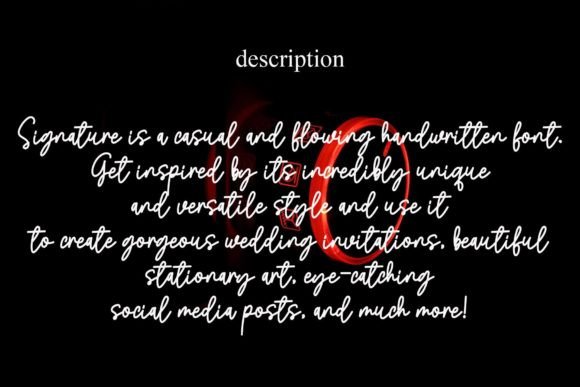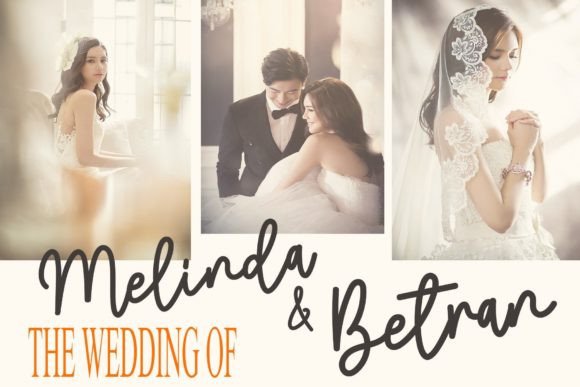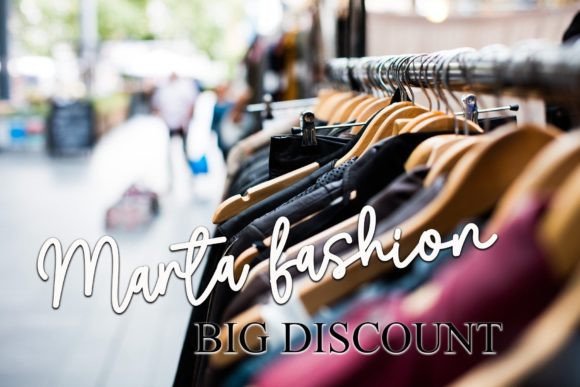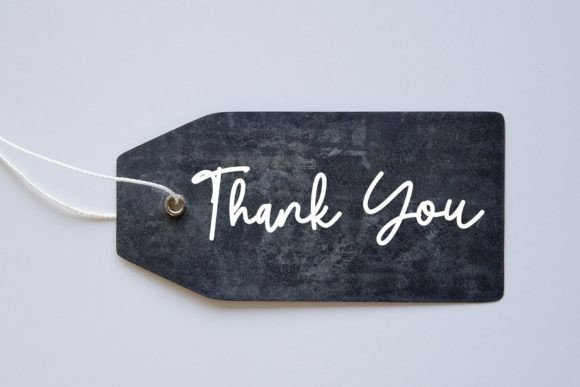
“Signature is a truly exceptional handwritten font that exudes elegance and sophistication through its superb, curvy lines. Its graceful and stylish design sets it apart, making it the perfect choice for a wide array of creative projects. Whether you’re working on product packaging, branding projects, magazine covers, social media graphics, wedding invitations, or any other design endeavor, Signature adds a touch of class and luxury that elevates your work to a new level of elegance.
What makes Signature stand out is its ability to create a lasting impression. The font’s curvy lines and fluid strokes reflect a sense of artistry and craftsmanship, capturing the eye with every letter. Its handwritten charm adds a personal touch, making your text feel intimate and unique. Whether you’re designing a high-end product label or a stylish magazine layout, Signature ensures that your work stands out with an elegant flair.
The versatility of Signature knows no bounds. Its ability to adapt to various design contexts makes it a valuable asset for designers seeking a font that effortlessly blends elegance and style. The font’s timeless appeal makes it suitable for both classic and contemporary themes, allowing you to experiment with different aesthetics while maintaining a sense of sophistication.
Incorporating Signature into your creative projects is like adding a signature touch of refinement and grace. Its elegant and curvy lines infuse your designs with a sense of luxury, making them visually captivating and memorable. Whether you’re crafting a brand identity, designing social media posts, or creating invitations for a special event, Signature imparts an aura of sophistication that leaves a lasting impact on your audience.
Signature is more than just a font; it’s a mark of elegance and style that transforms your work into a masterpiece. Its superb handwritten design adds a level of exclusivity and charm, making your projects truly stand out. Embrace the beauty of Signature and let it enhance your creativity, elevating your designs to new heights of elegance and sophistication.”